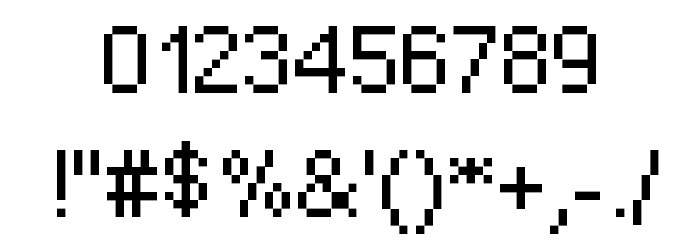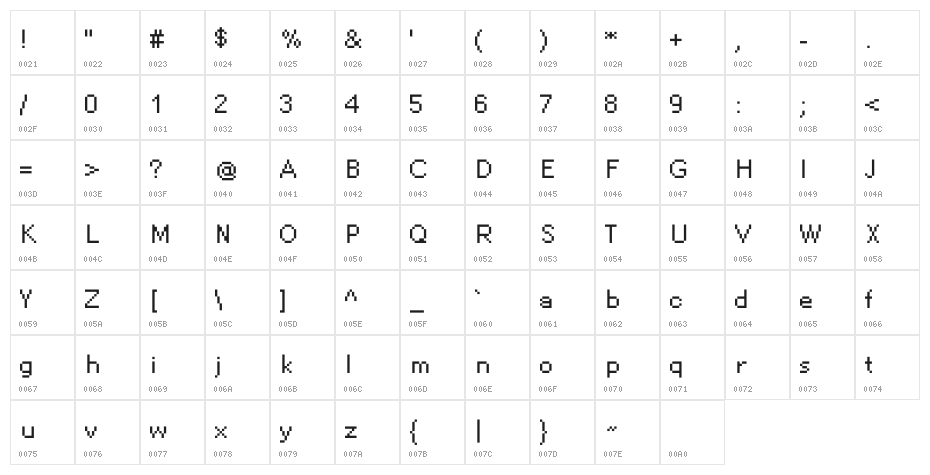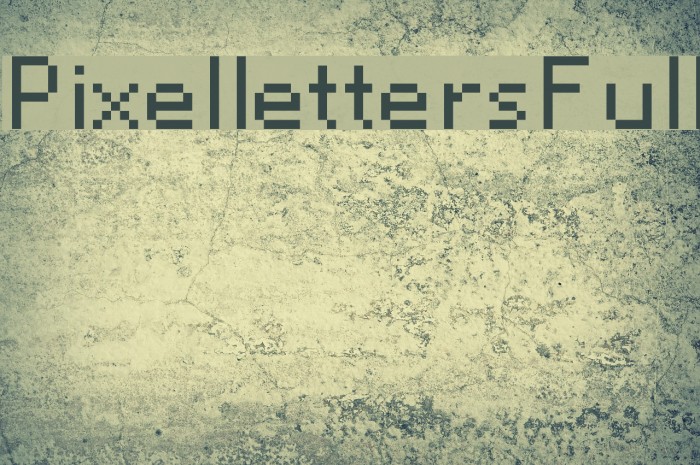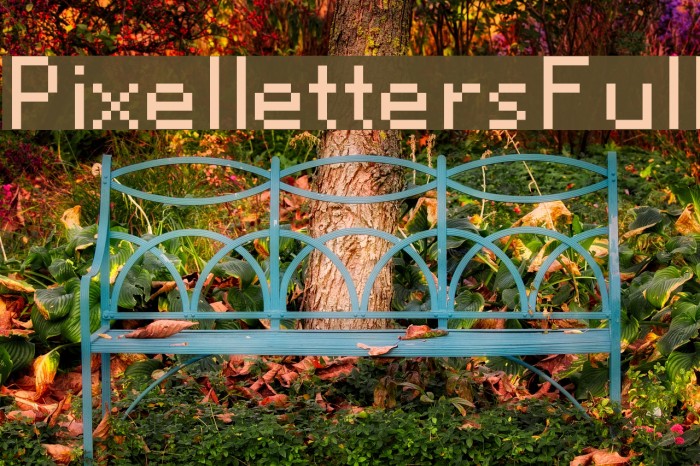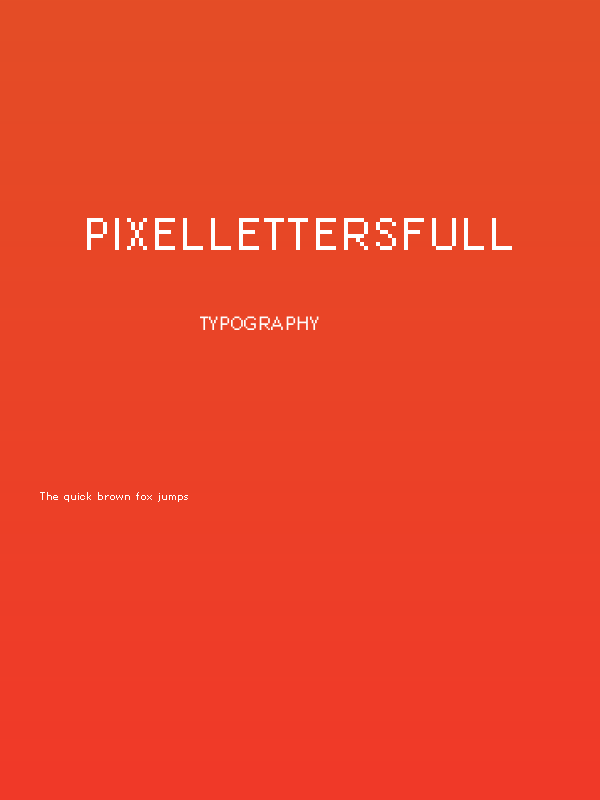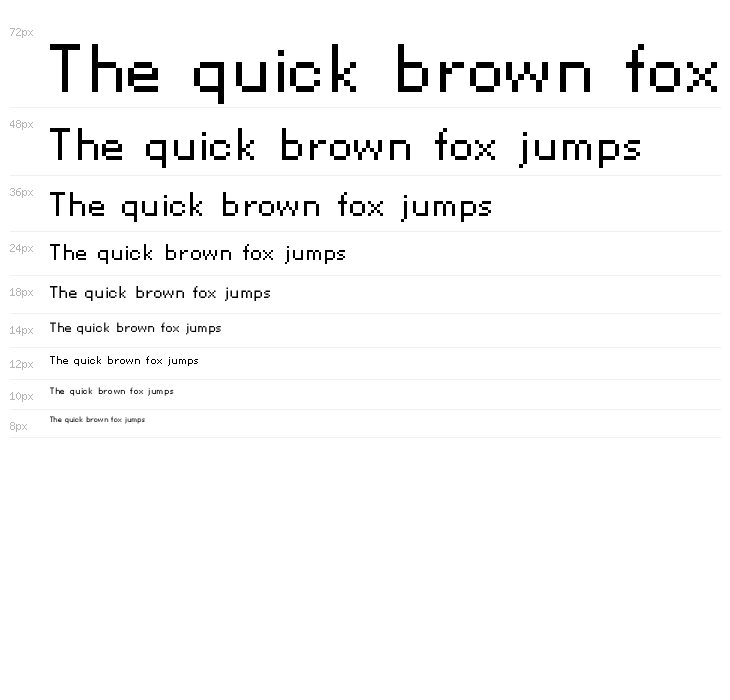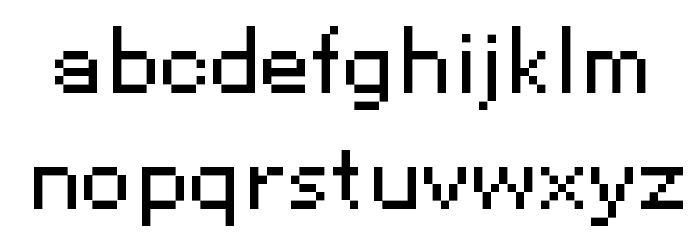
PixellettersFull Font
PixellettersFull Description
This font is a pixelated, monospaced typeface that evokes a retro, digital aesthetic reminiscent of early computer screens and video games. Each character is constructed with a grid-like precision, giving it a blocky, geometric appearance. The uniformity in character width and height creates a consistent and orderly look, making it ideal for digital displays or projects that require a nostalgic, tech-inspired feel. The font includes a full set of uppercase and lowercase letters, numbers, and a variety of special characters, ensuring versatility in usage.
| Use Case | Logos, Digital displays, Video games |
| Proposed Projects | Ideal for retro video games, digital art projects, tech-themed designs, and any creative work that seeks to capture a vintage digital look. |